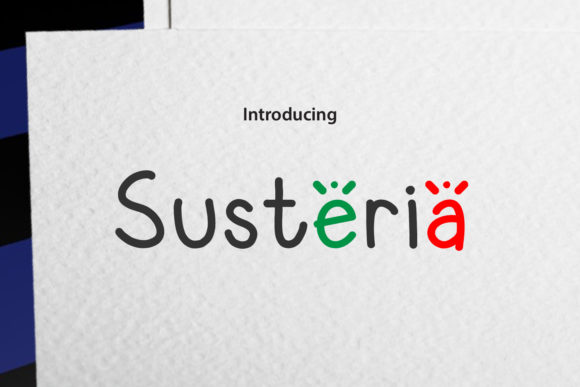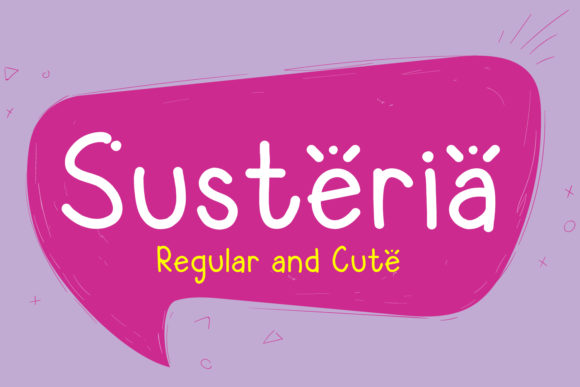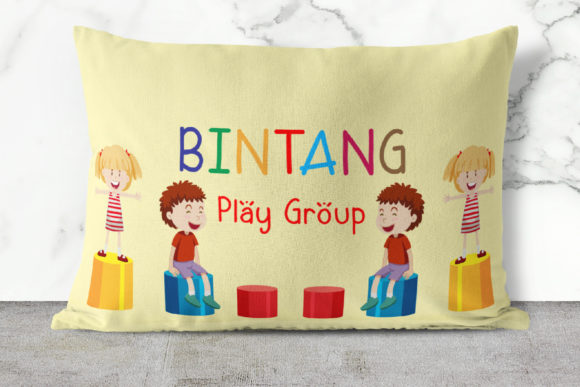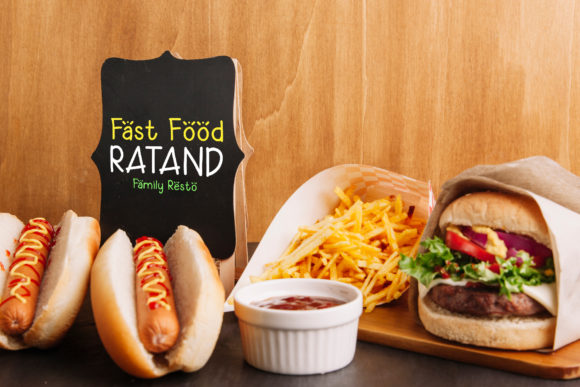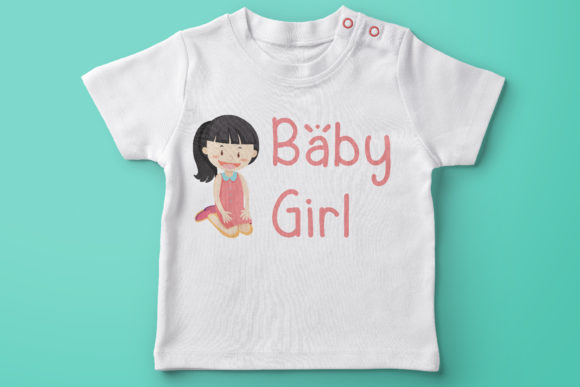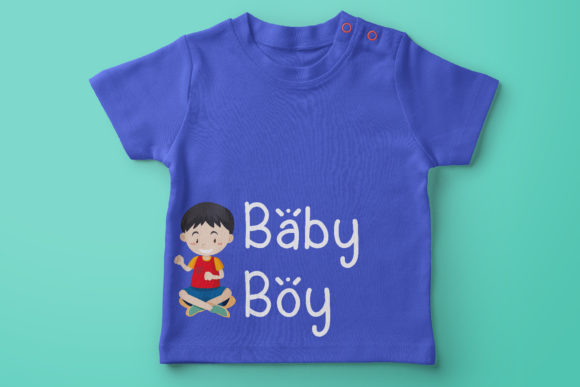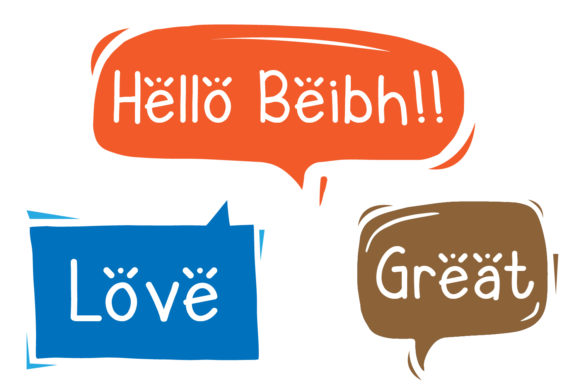
Susteria Font
About Susteria Font
Susteria is a fun and playful handwritten font with a whimsical feel. Get inspired by its youthful charm, and turn any design project into an eye catcher!